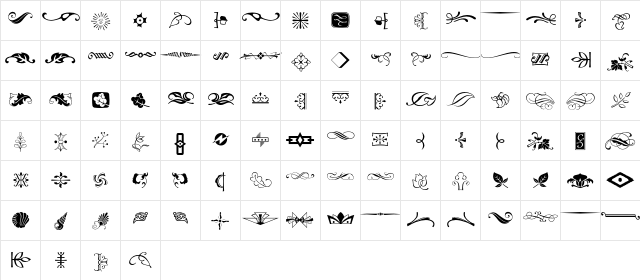
Art Ornament Regular Font Preview
Art Ornament Regular
Design Context for Art Ornament Typeface
Art Ornament brings ornamental detail and strong personality to headlines and identities, where visual impact matters more than quiet functionality.
Font Pairing: Pair with a clean neutral sans-serif for body copy to let Art Ornament's character lead without overwhelming the composition.
Pro Tip: Use Art Ornament exclusively at display sizes — it was designed to be seen, not read at length. Let a neutral companion handle body copy.